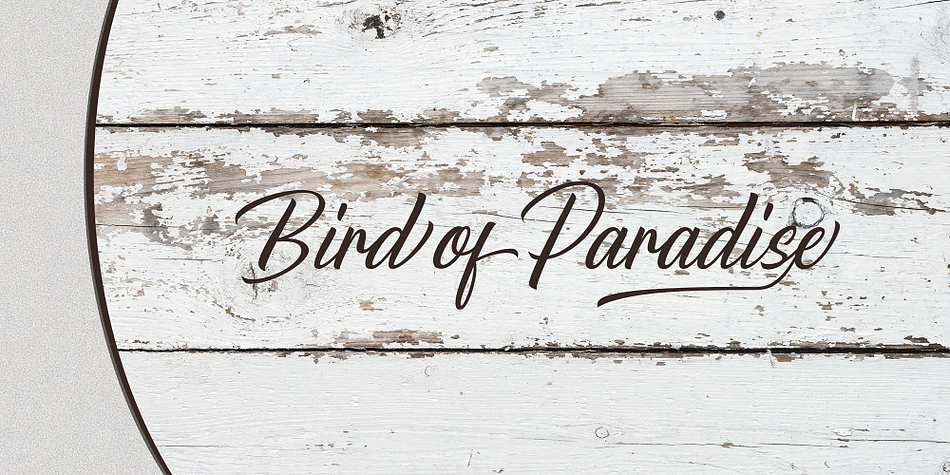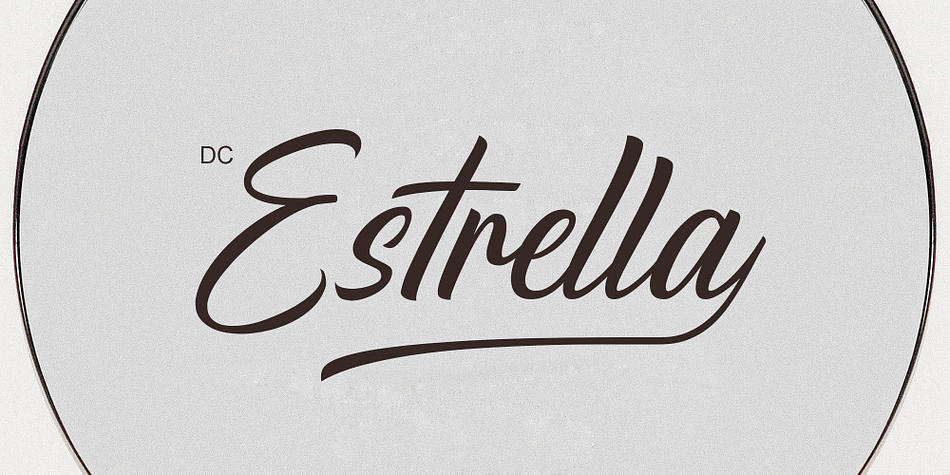
Estrella
Designed by Raban Panton, Estrella is a brush script and script font published by DecaType.
Estrella is a script typeface with sharp characters. Ideal for logos, name tag, quotes, product packaging, merchandise, social media & greeting cards. It contains a full set of lower & uppercase letters, alternative characters, a large range of punctuation, numerals, and multilingual support.
The alternative characters in this font were divided into several OpenType features such as Stylistic Alternates, Stylistic Sets, and Ligature.